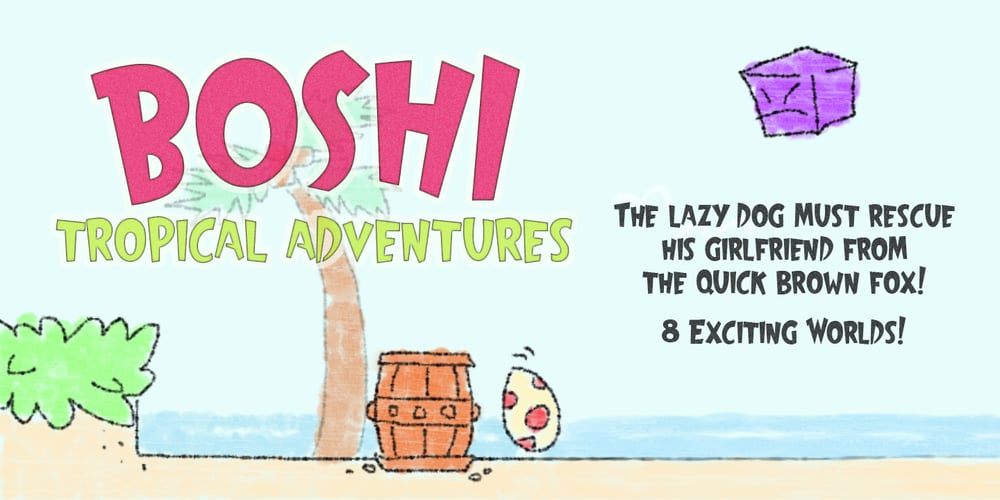
Boshi Font Family was designed by Ian Stone and published by Tymime Fonts. Boshi contains 1 styles and family package options. Boshi is inspired by classic video games, but it can do more than that. Saturday morning cartoons, comic books and other logos that need to express fun are other ways this font can be used. It also includes several Tiki-style interlocking ligatures. Vastly improved over the original free version, already featured in several high-profile mobile games and even a toy, Boshi evokes retro goodness.